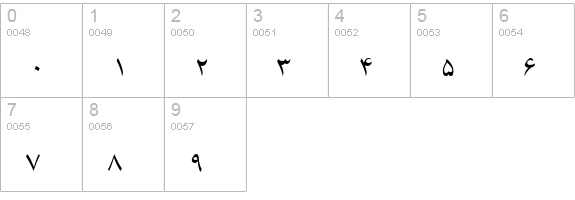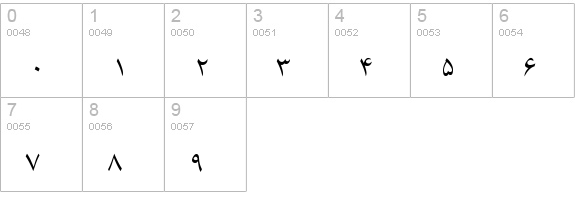
B Karim Font Details
The B Karim font is a beautifully crafted typeface that exudes elegance and sophistication. Its sleek and modern design makes it perfect for a wide range of projects, from branding to editorial design. The clean lines and unique letterforms of the B Karim font will surely make your text stand out and leave a lasting impression on your audience. What's even better is that the B Karim font is completely free to download at FontsMarket.com. This means that you can easily access this stunning font and use it in your projects without any cost. Whether you're a designer looking to add a touch of class to your creations or a business owner wanting to elevate your brand's visual identity, the B Karim font is the perfect choice. Download it now and start creating beautiful designs with this amazing font!